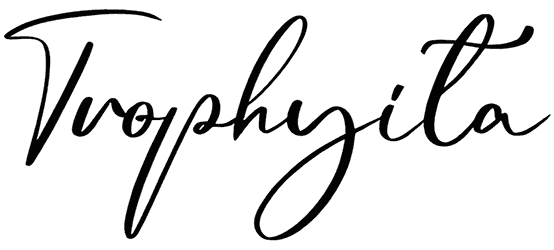
Trophyita Font
Not won’t be too hard to make a top face for your upcoming design by Trophyita. This feminine tattoo font with an elegant and attractive mood will make a professional hand art style on words. Trophyita is a versatile font and can be used on lots of projects with various themes, such as fashion designs, invitation cards, quotes, and many more.